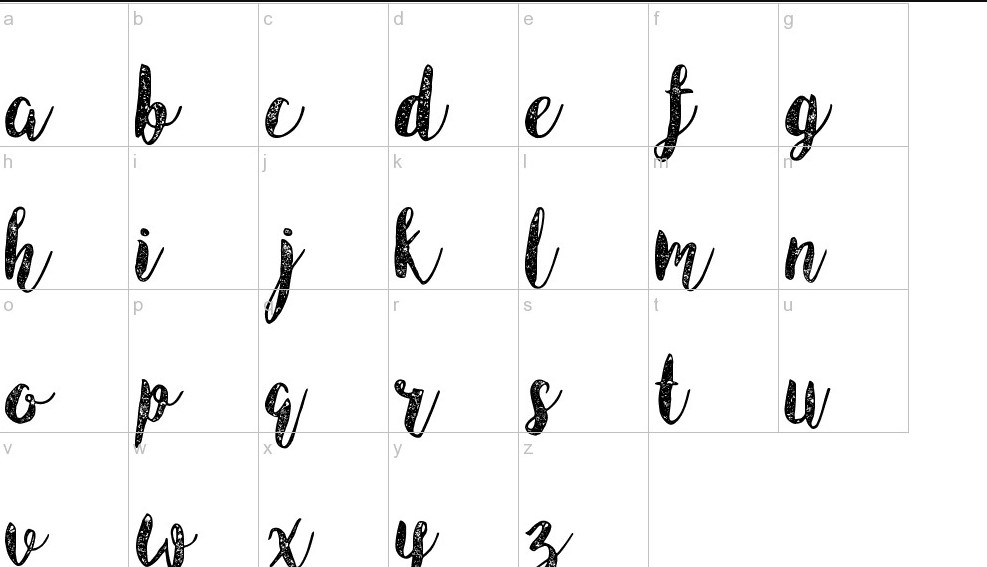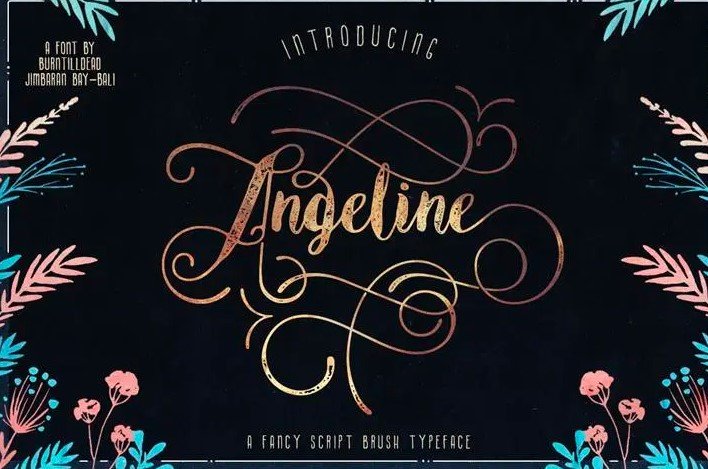
We are sharing with you the most charming and beautiful scripted typeface that contains modern and robust designs of its character’s layout. Introducing Angeline Vintage Font that was designed by the great font maker company that is Burntilldead.
The font family includes different styles and variations you can see in the font family sections below. The font contains great alternates and having brilliant characters’ texture. Also, it has curvy strokes with sharing edges that will help in making the perfect and right professional designs.
View Of Angeline Vintage Font
Now, the time is came to view the sample the of great typeface. Below, we shared an image that contains the glyphs and characters of this amazing font which creates best designs in Adobe photoshop and Adobe Illustrator.
This unque and elegant font that has brush and handwritten texture which has a popular texture so that can also be used in pairing also. That’s why each designer treated it as a really perfect font in all appreciate.
| Name | Angeline Vintage Font |
| Designer | Burntilldead |
What Type of Font Is Angeline Vintage?
The Angeline Vintage Font is the famous and unique brush typeface that contains lots of amazing great textures.